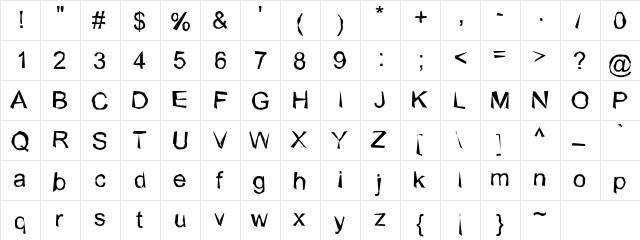
Wobbly Regular
| Designer | Monotype Type Drawing Office - Robin Nicholas, Patricia Saunders 1982 |
Design Context for Wobbly Typeface
Wobbly takes a measured approach to typography — its balanced proportions and neutral character make it a reliable workhorse for both digital and print work.